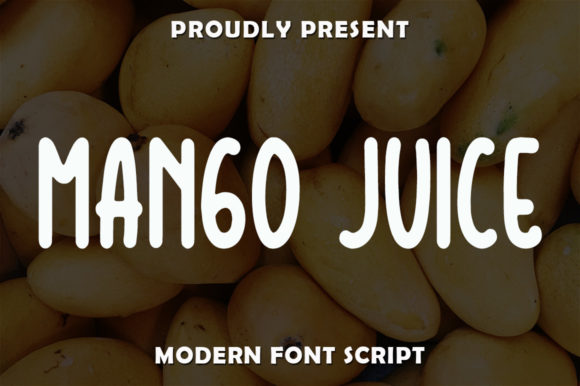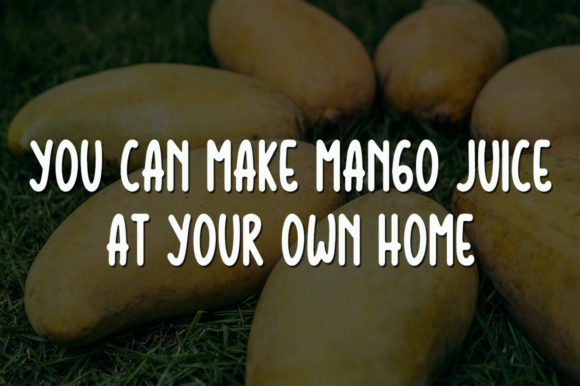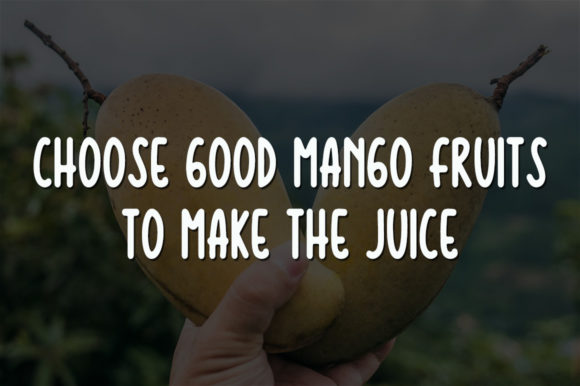
About Mango Juice Font
Mango Juice is a simple and tall lettered display font. Quirky and natural, this font will fit a wide variety of designs. It can be used for various purposes such as logos, wedding invitations, headings, t-shirts, letterhead, signage, labels, news, posters, badges and so much more.